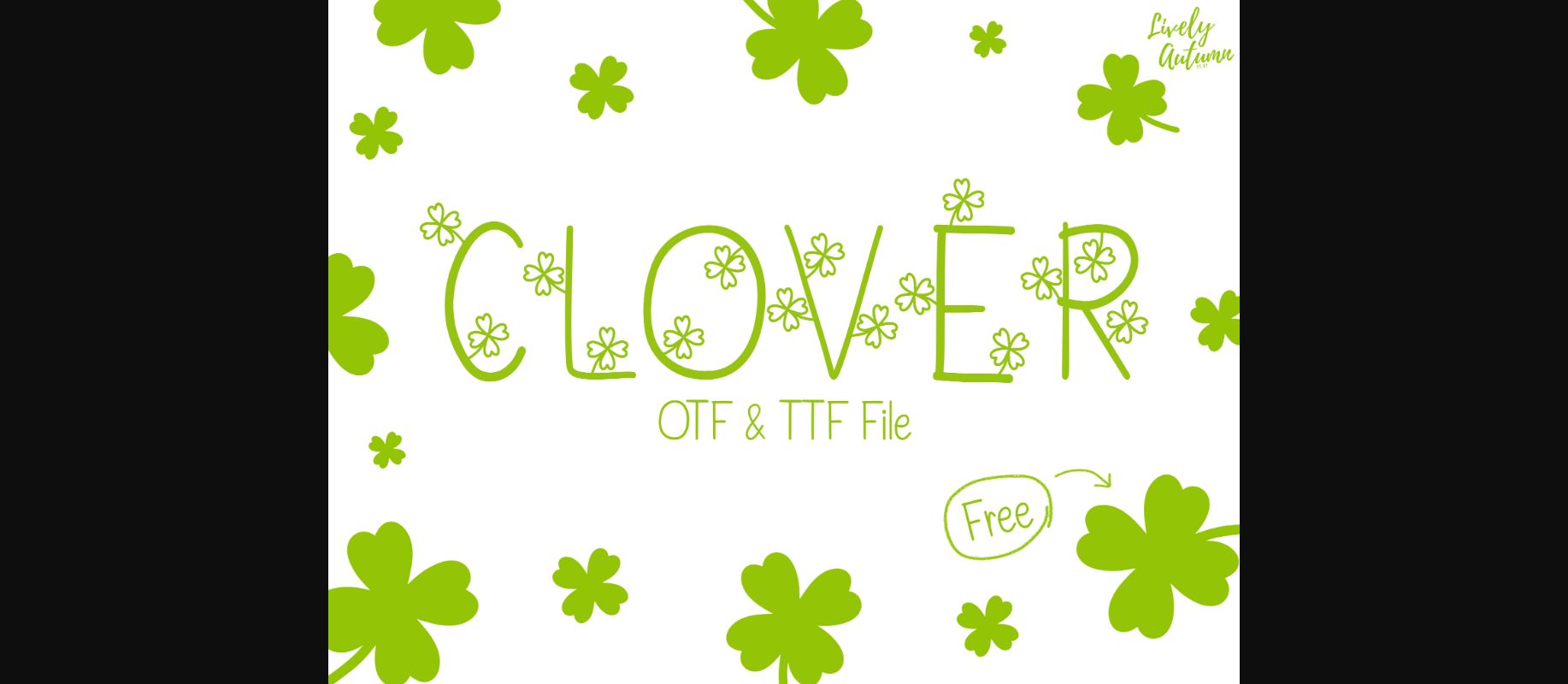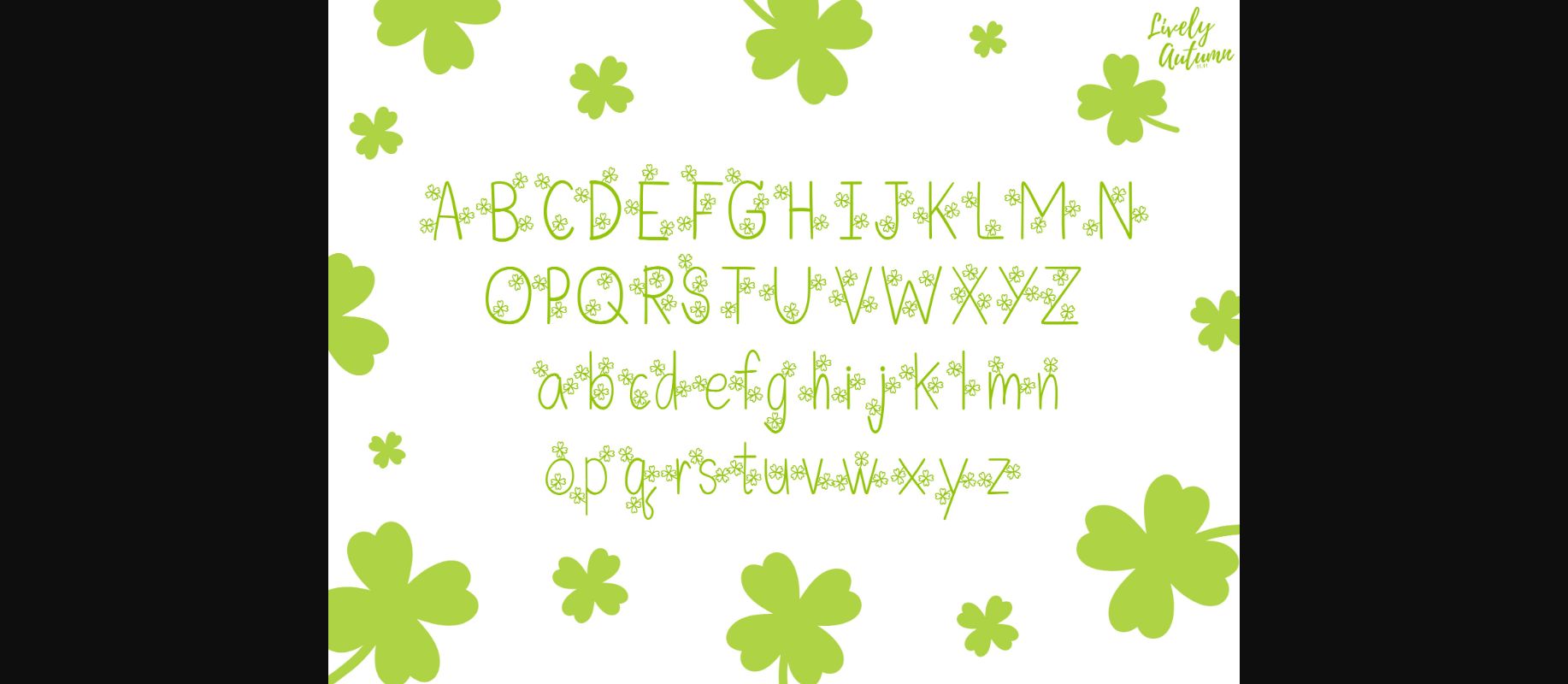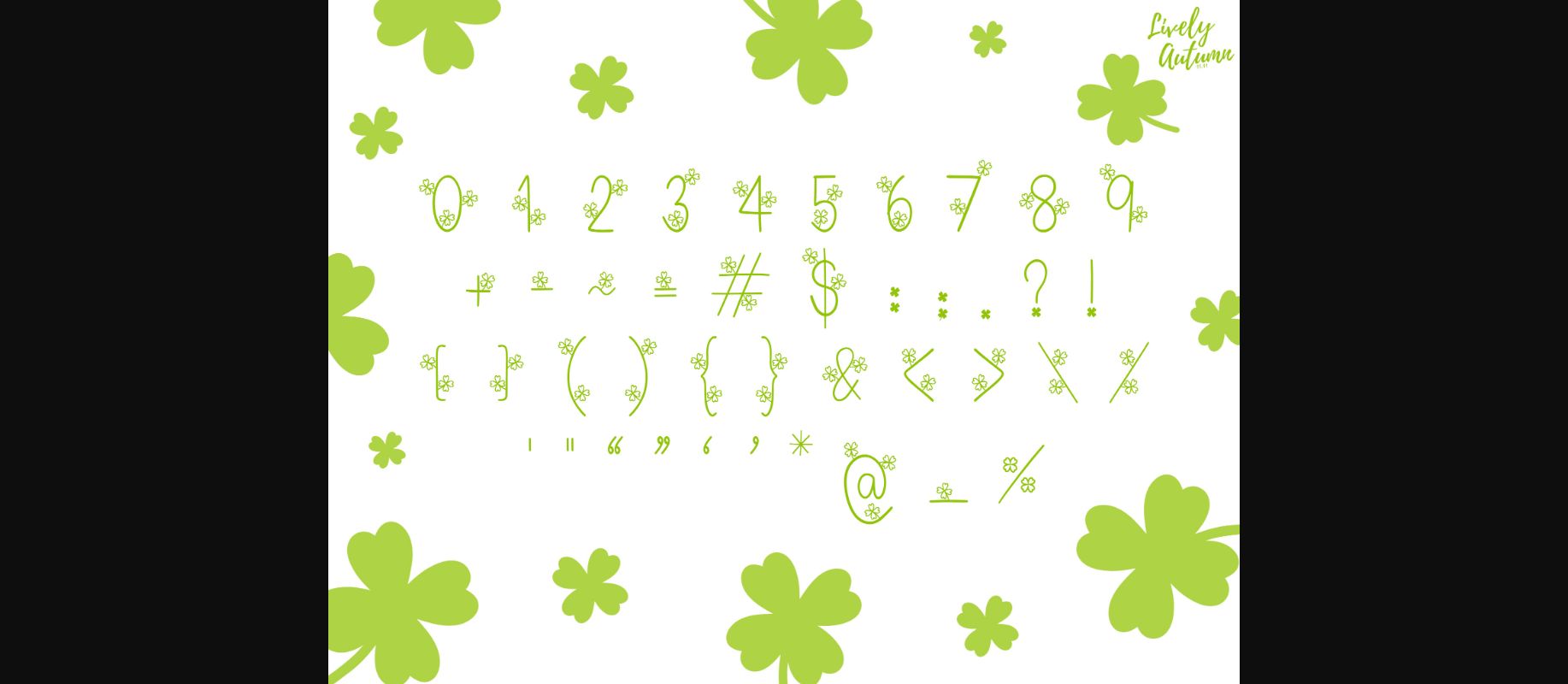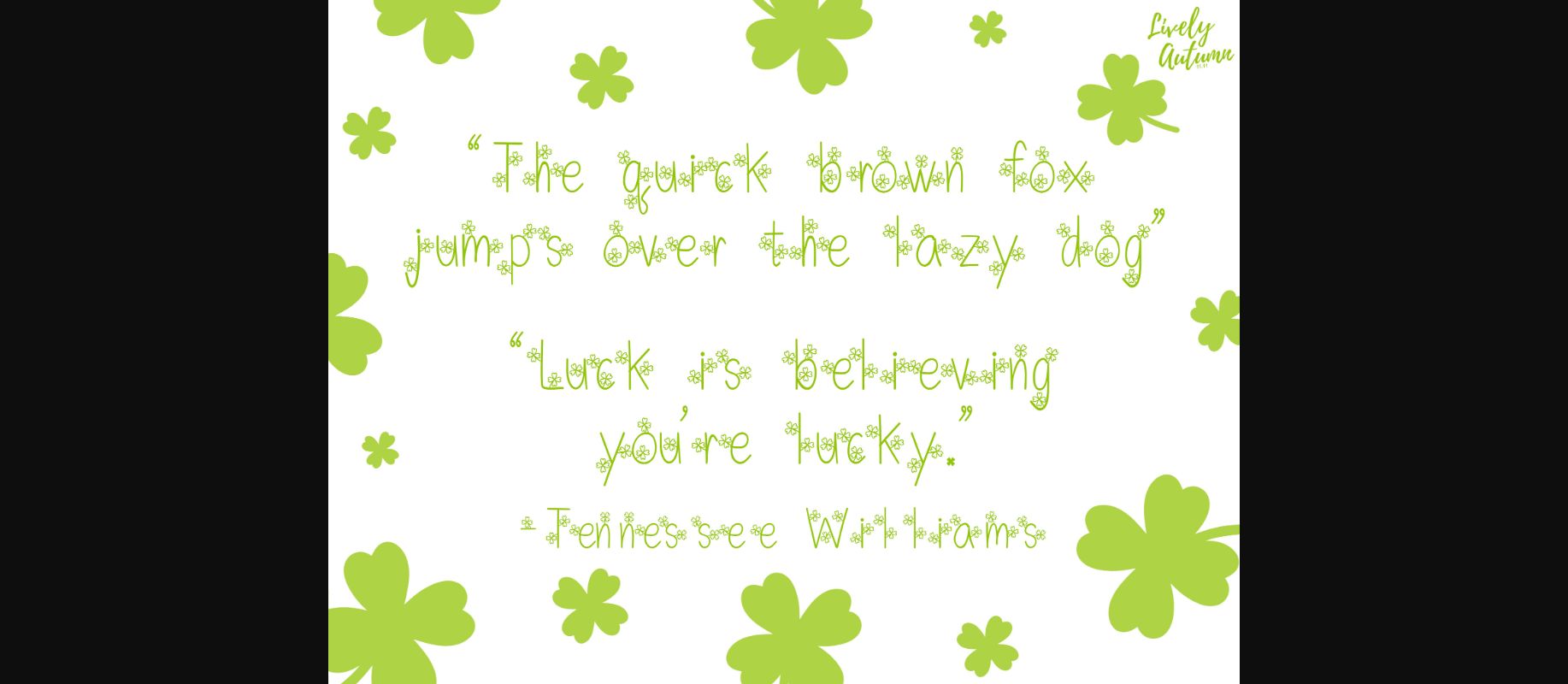
Clover is a fancy decorative font that has a clover leaf on each letter. This font is perfect for your fun designs, St. Patrick’s Day projects, quirky stickers, and more.